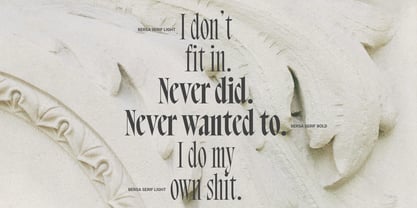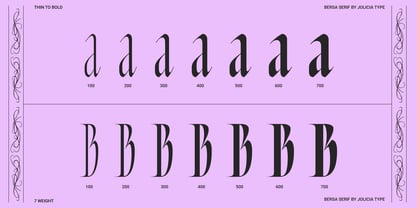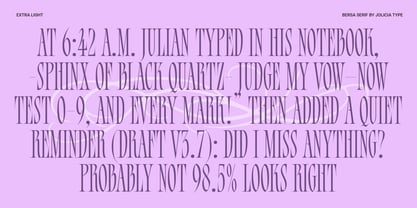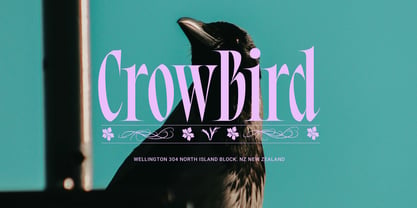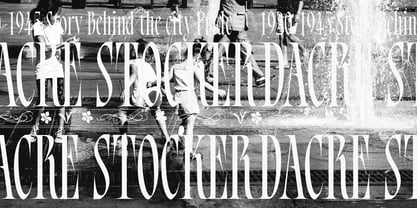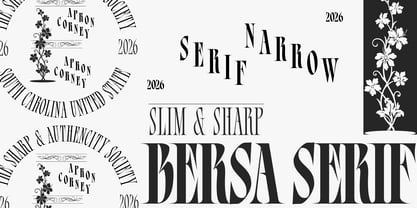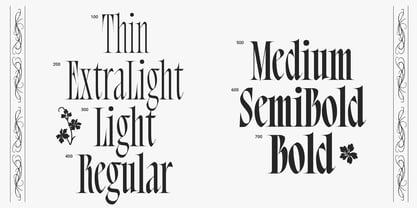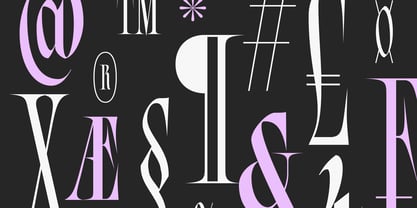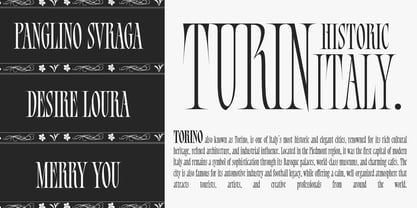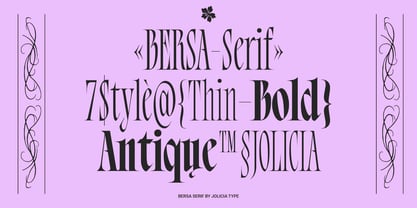
Bersa Serif
by Jolicia Type
The Bersa Serif Font Family was designed by Laire Banyu and published by Jolicia Type. Bersa Serif contains 7 styles and family package options.
Bersa Serif is a narrow serif typeface featuring sharp, pointed terminals and subtle blackletter pen strokes, creating a bold, elegant, and distinctive character. Designed with a slim and condensed proportion, it maximizes space efficiency while maintaining strong visual impact. With 7 weights ranging from Thin to Bold, Bersa Serif offers excellent flexibility for various design needs. Its blend of classic structure and modern expression makes it ideal for headlines, branding, posters, editorials, and display designs that demand a powerful, refined, and premium appearance. Inspired by classical calligraphy and contemporary typography, Bersa Serif blends traditional craftsmanship with modern precision. Its subtle blackletter influence adds personality without overpowering the design, making it suitable for both bold statements and sophisticated compositions.